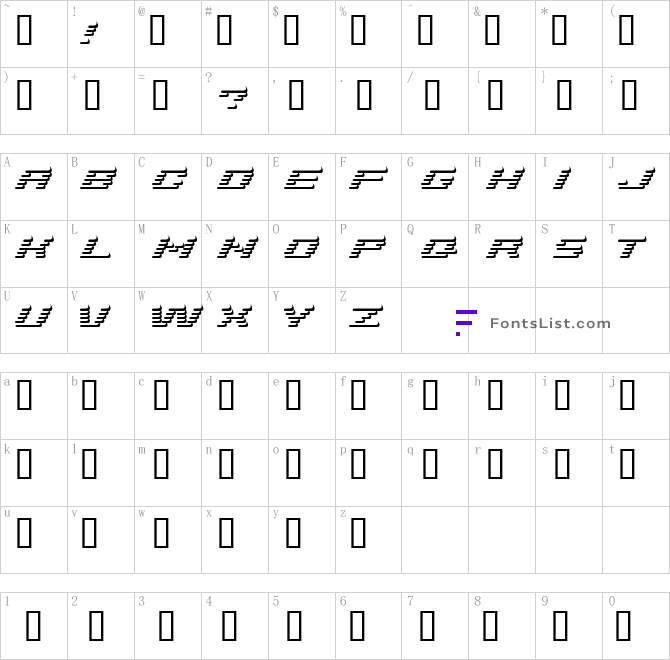
- Font Name:AddShade
AddShade.ttf is a very beautiful artistic font, AddShade.ttf is widely used in the design and printing of various books and pictures,AddShade.ttf has a strong visual impact,AddShade.ttf is a commonly used font in newspapers, magazines and books, and is used in posters, e-commerce Poster design, store design, logo design, font design and other fields.AddShade.